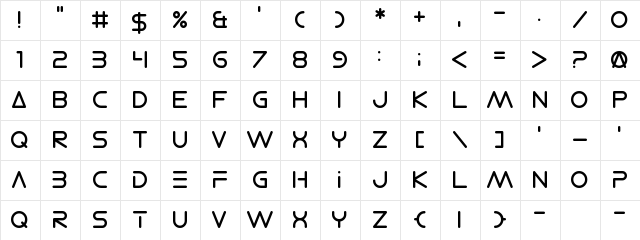
Electro Shackle Regular
| Designer | AM |
Design Context for Electro Shackle Typeface
Electro Shackle takes a measured approach to typography — its balanced proportions and neutral character make it a reliable workhorse for both digital and print work.